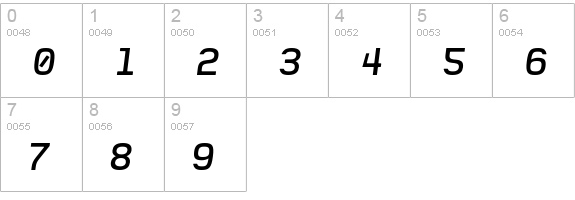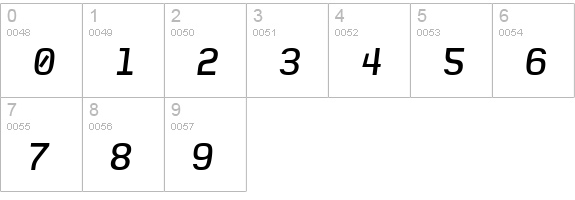
FauxCRA-Italic is a distinctive, italic variant in the FauxCRA typeface family \xE2\x80\x94 well suited to design and typography projects.
FauxCRA-Italic font is a stylish and elegant typeface that exudes sophistication and charm. With its unique italicized design, this font is perfect for adding a touch of class to any project. Its sleek lines and smooth curves make it a versatile choice for a wide range of design applications. Best of all, FauxCRA-Italic font is completely free to download! You can easily access this exquisite font at FontsMarket.com, where you can quickly and effortlessly enhance your designs with this beautiful typeface. Whether you're working on a branding project, creating invitations, or designing a website, FauxCRA-Italic font is sure to make a lasting impression. Don't miss out on the opportunity to elevate your designs with this stunning font. Download FauxCRA-Italic today and see the difference it can make in your creative projects!